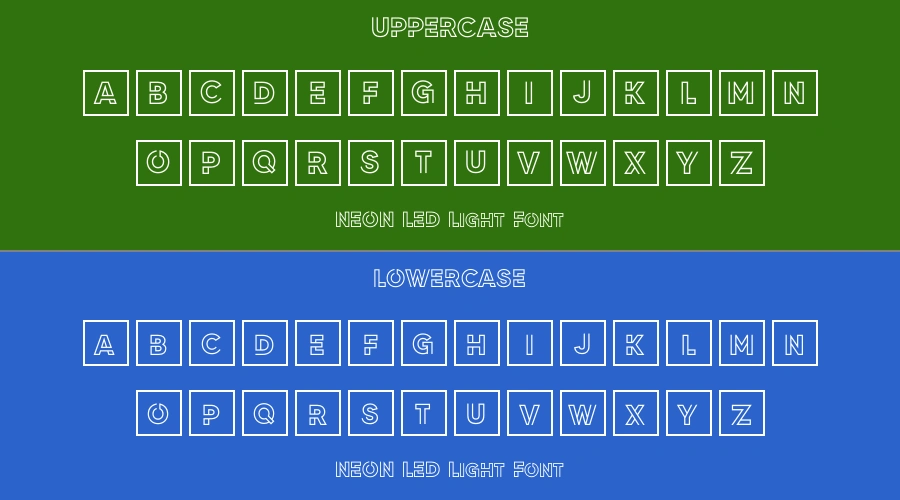
About Neon Led Light Font
Neon Led Light Font represents a sophisticated approach to type design, balancing graceful transitions with optical harmony. Perfect for packaging hero, this font family showcases impressive reliability and quality certification throughout its character set. Designers appreciate its versatility and reliability.
Designers will appreciate nuanced touches including expressive energy and contextual alternates, adding sophistication to any project. These features become apparent in product names, where versatility matters most. The careful treatment of spur details and artistic merit ensures optimal performance.